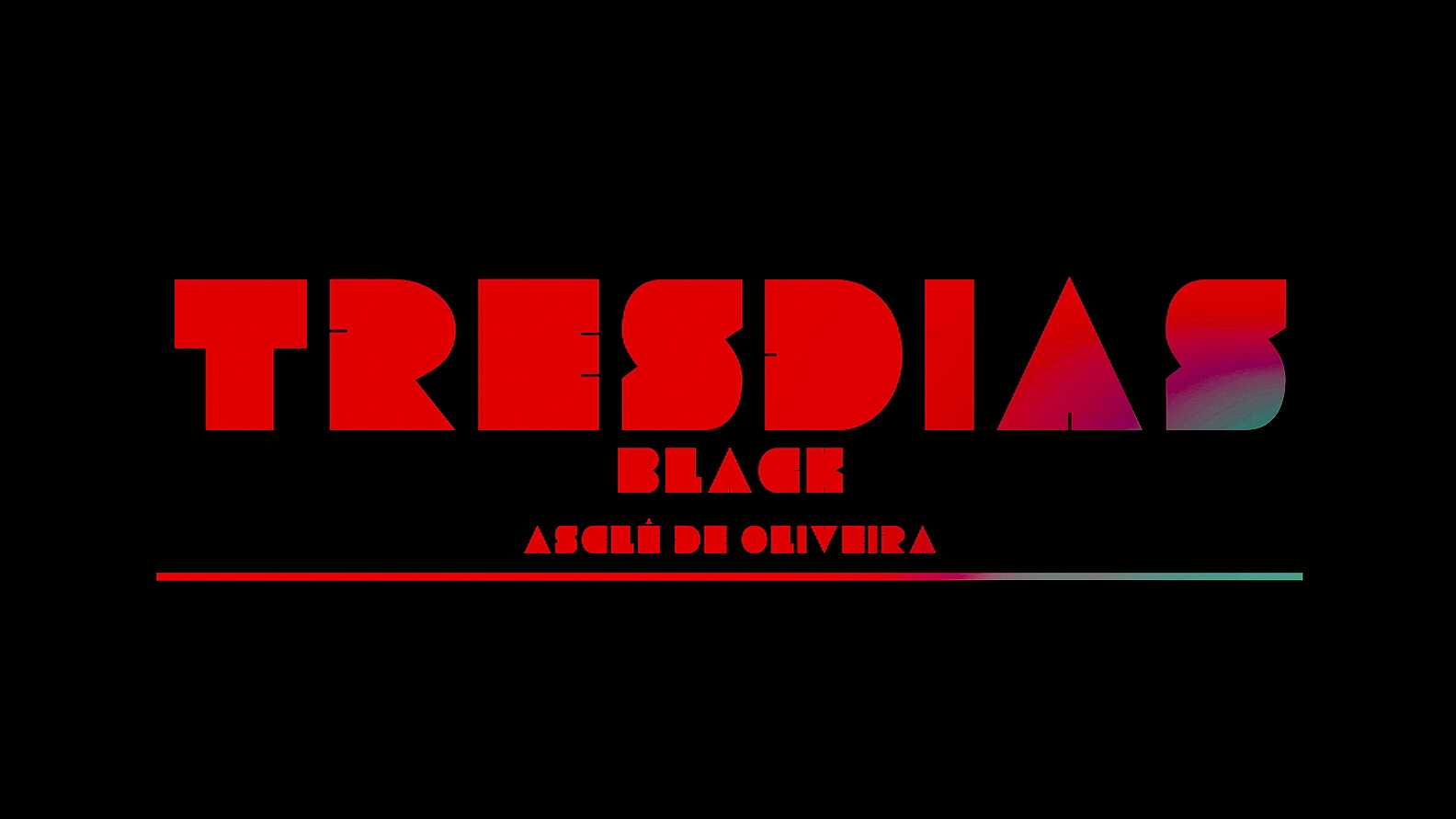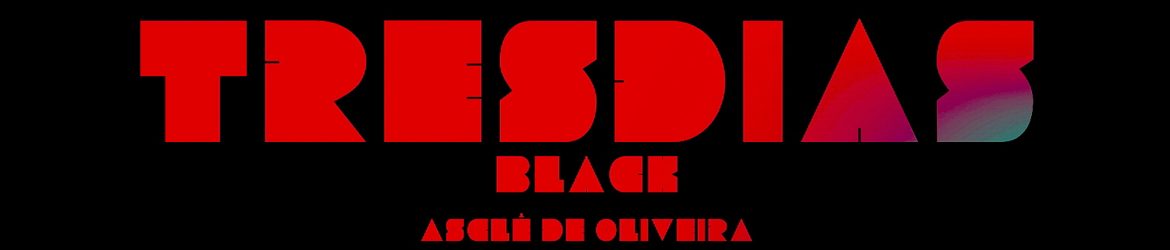
Download Tresdias font, a heavy weight all caps display font in Black and Outlined styles. This font is suitable for posters and headlines, banners and other creative typographic projects.
Designer: Asclê de Oliveira